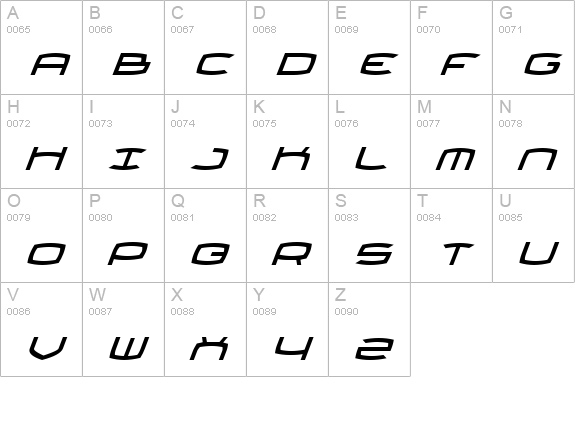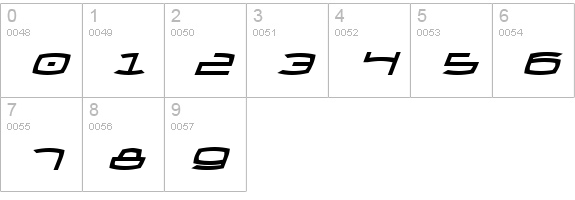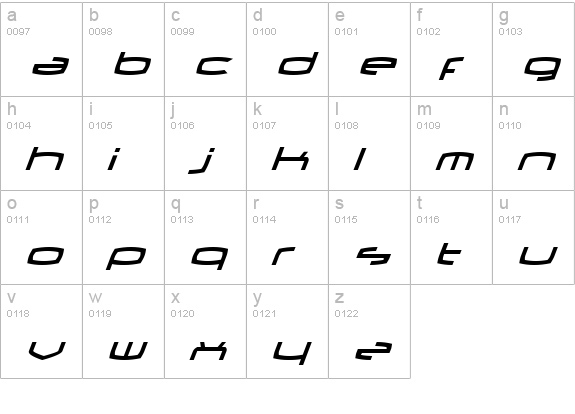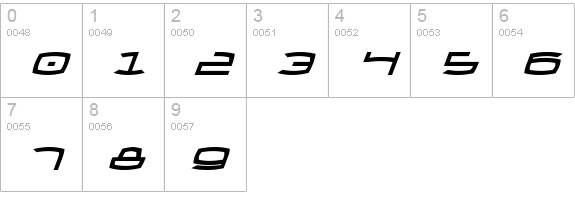
Thundergod II Italic is a distinctive, italic variant in the Thundergod typeface family \xE2\x80\x94 well suited to design and typography projects.
Introducing Thundergod II Italic font, a powerful and captivating typeface that will electrify your designs. With its striking and bold letterforms, Thundergod II Italic commands attention and exudes a sense of strength and authority. This font is the perfect choice for projects that require a touch of dynamism and intensity. Whether it's designing eye-catching headlines, creating impactful logos, or adding a touch of drama to your printed materials, Thundergod II Italic will deliver the impactful results you desire. But what sets Thundergod II Italic apart is not just its incredible aesthetics, but also its accessibility. This remarkable font is freely available to download at FontsMarket.com. Yes, you read that right - Thundergod II Italic can be yours without any cost. Now you can unleash its powerful energy and make your designs stand out without breaking the bank. The Thundergod II Italic font showcases a unique blend of modernity and classic elegance. Its sleek and slanted letterforms create a sense of movement and momentum, while its sturdy strokes convey a sense of reliability and confidence. The sharp edges and subtle curves of each character make for a harmonious and visually pleasing composition. Whether you are a professional designer or an aspiring creator, Thundergod II Italic is a versatile asset that will elevate your work to new heights. Its legibility and distinct personality make it suitable for a wide range of design projects, from branding and advertising to packaging and posters. So, why wait? Harness the power of Thundergod II Italic font and bring your designs to life with its electrifying presence. Download this remarkable typeface for free at FontsMarket.com and let your creativity soar. Unleash the thunder of your imagination and leave a lasting impression with Thundergod II Italic.